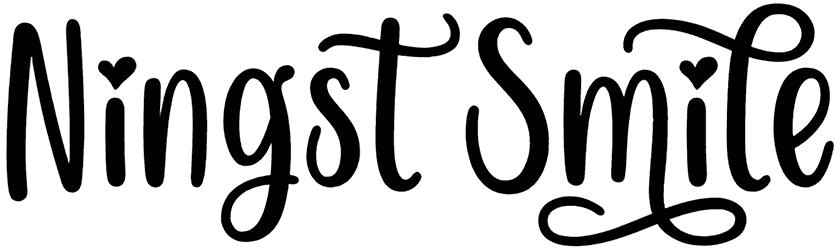
Ningst Smile Font
Ningst Smile is a script calligraphy font that will make you smile! With its casual but sophisticated comic handwriting aesthetic, Ningst Smile is excellent for any creative endeavor. This love font will make your text stand out, whether you’re producing a comic book or making banners and flyers.